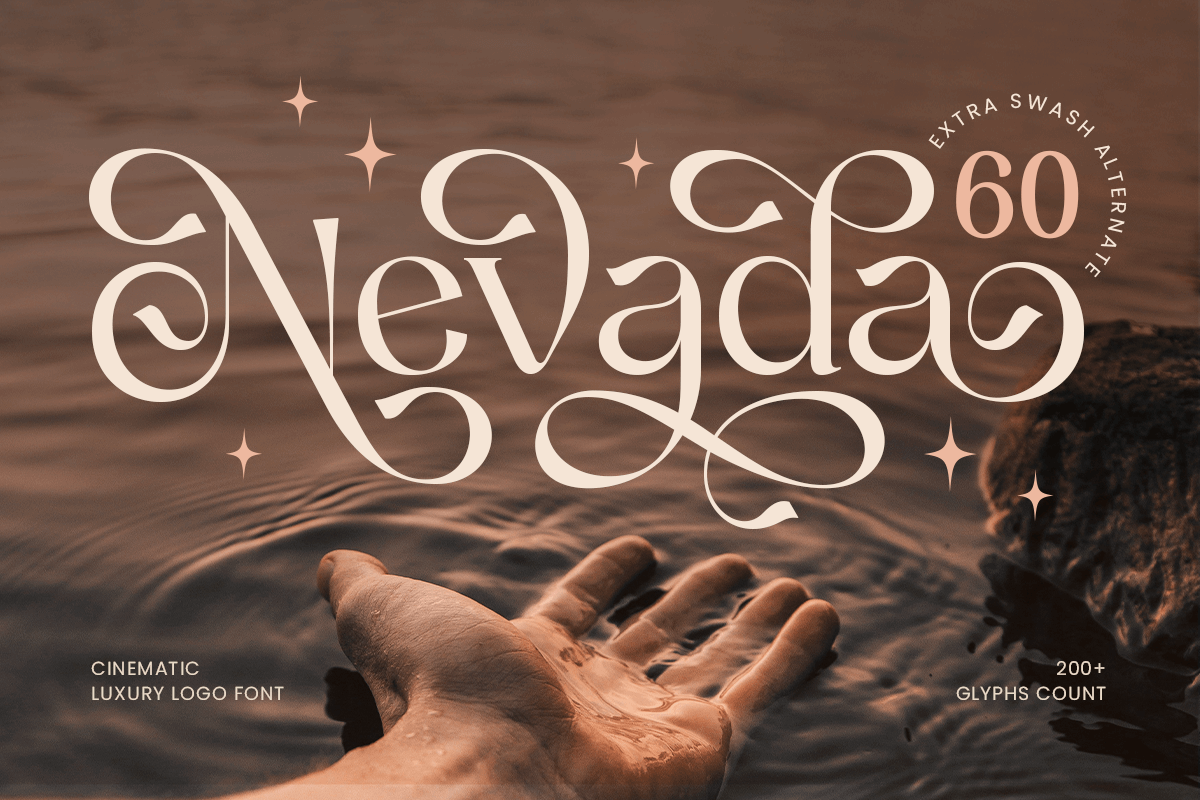
Nevada
-Cinematic Branding Logo FontNevada - Cinematic Branding Logo Font
Nevada is a cinematic luxury font designed to bring a touch of elegance and sophistication to your logo and branding projects. Perfect for high-end logos, premium branding, and luxurious design projects, Nevada combines refined letterforms with cinematic flair, offering a timeless and classy aesthetic.
Whether you're working on a luxury product line, a prestigious event, or a sophisticated brand identity, Nevada ensures your design stands out with a polished, high-class look. Its versatility and elegance make it ideal for both digital and print applications.
Nevada – Cinematic Luxury Logo Font Features
Elegant letterforms with a cinematic luxury aesthetic
Perfect for high-end logos, branding, and prestigious designs
Sleek and refined design with timeless appeal
OpenType features for advanced typographic control
Create a luxurious brand identity with Nevada – the perfect font for cinematic, high-end logos and branding. ✨🎥